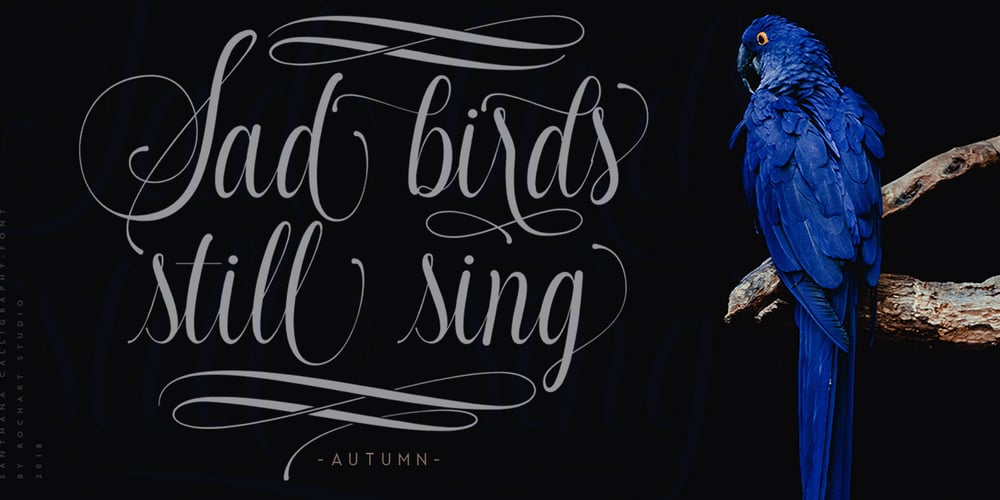
Santhana Font Family was designed by Rochadi Sudarma and published by Rochart. Santhana contains 2 styles and family package options. Santhana is a font collection that contains more of alternate and some Ornament. The collection of fonts that are designed to complement each other in their use. Santhana is perfect for logo design, t-shirts, flyers, apparel, packaging, advertising, Wedding Invitation etc. This typeface contain of Uppercase, Lowercase, Alternate, Swash, Number, Symbol, Punctuation, Ligature etc. Also support multilingual and already PUA encoded.